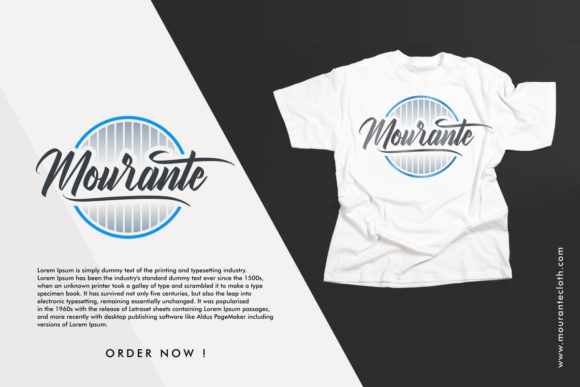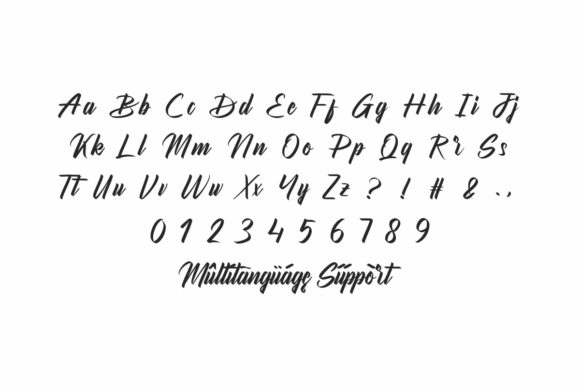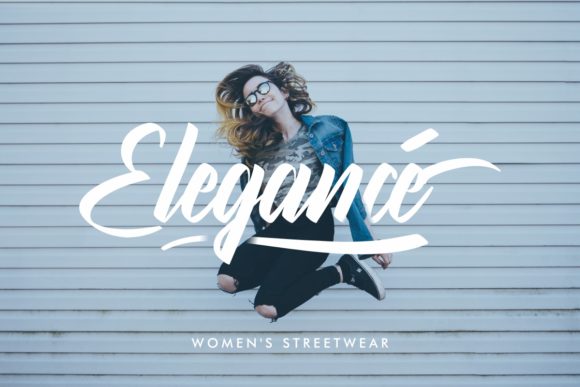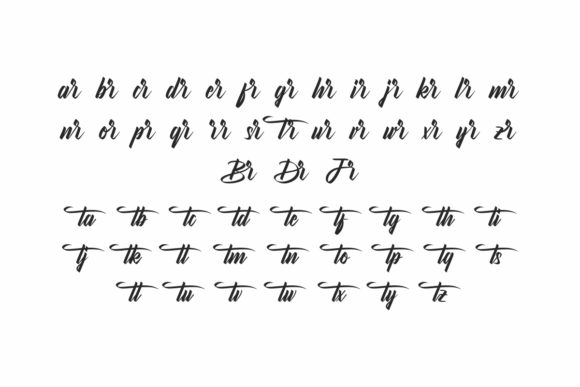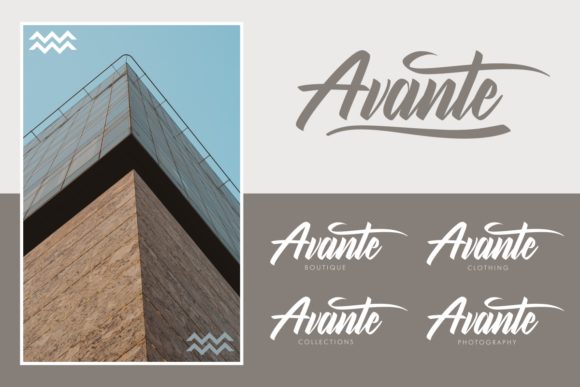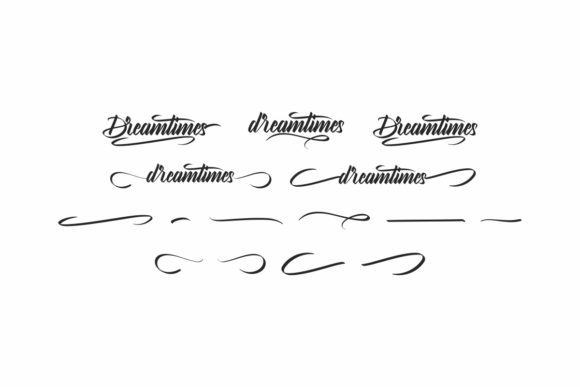
Dreamtimes Font: Elevate Your Designs with a Brush Handwritten Style
Are you looking for a font that adds a touch of elegance and sophistication to your designs? Look no further than Dreamtimes Font, a beautiful brush handwritten font that is perfect for a wide range of projects. In this article, we’ll explore the features and benefits of Dreamtimes Font, and show you how it can elevate your designs to the next level.
What is Dreamtimes Font?
Dreamtimes Font is a stunning brush handwritten font that is designed to add a personal touch to your designs. With its flowing lines and delicate strokes, this font is perfect for creating beautiful and eye-catching text. Whether you’re working on a wedding invitation, event poster, or logo design, Dreamtimes Font is the perfect choice.
What Makes Dreamtimes Font Special?
So, what sets Dreamtimes Font apart from other fonts? Here are just a few features that make it a standout:
- Brush Handwritten Style: Dreamtimes Font has a unique brush handwritten style that gives it a personal and elegant feel.
- PUA Encoded: This font is PUA encoded, which means you can access all of the glyphs and swashes with ease. This makes it easy to customize your text and add your own personal touches.
- Wide Range of Uses: Dreamtimes Font is suitable for a wide variety of projects, including wedding invitations, events, logos, posters, and more!
Benefits of Using Dreamtimes Font
So, why should you choose Dreamtimes Font for your next project? Here are just a few benefits of using this amazing font:
- Elegant and Sophisticated: Dreamtimes Font adds a touch of elegance and sophistication to any design, making it perfect for high-end projects.
- Easy to Use: With its PUA encoding, Dreamtimes Font is easy to use and customize, even for designers who are new to font editing.
- Versatile: Dreamtimes Font can be used for a wide range of projects, from wedding invitations to event posters and logos.
Tips and Tricks for Using Dreamtimes Font
Here are a few tips and tricks to help you get the most out of Dreamtimes Font:
- Experiment with Different Sizes: Try out different font sizes to see how Dreamtimes Font looks in different contexts.
- Play with Glyphs and Swashes: Use the PUA encoding to access the glyphs and swashes, and add your own personal touches to the text.
- Pair with Other Fonts: Try pairing Dreamtimes Font with other fonts to create a unique and eye-catching design.
Dreamtimes Font is a beautiful and elegant brush handwritten font that is perfect for a wide range of projects. With its PUA encoding and wide range of uses, this font is a must-have for any designer or crafter. Whether you’re working on a wedding invitation, event poster, or logo design, Dreamtimes Font is the perfect choice. So why wait? Download Dreamtimes Font today and start elevating your designs to the next level!